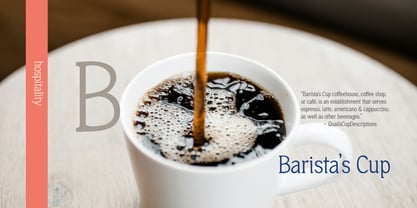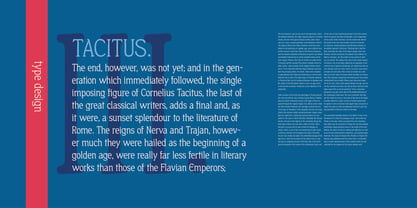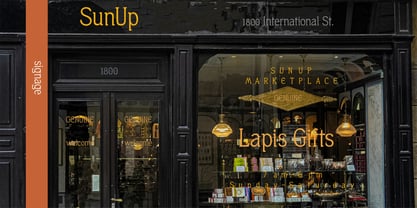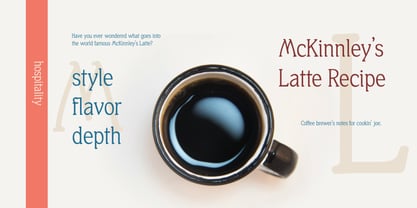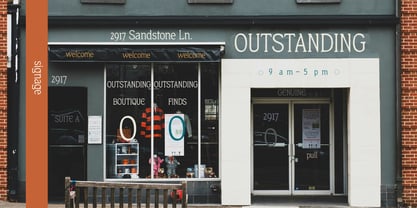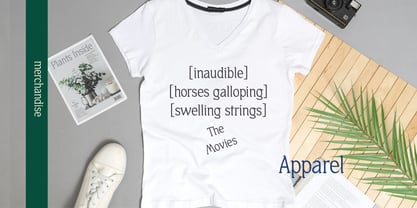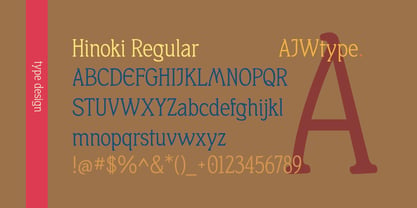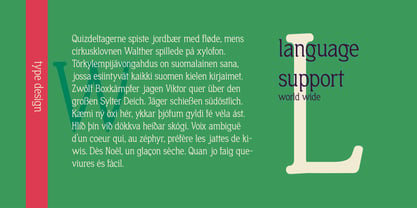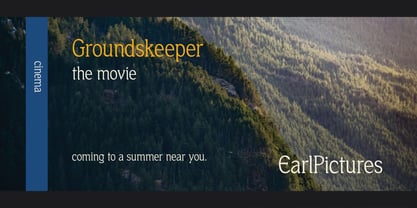
Hinoki
by AJW Type
Hinoki is a revival and redesign of Schelter-Antiqua, a serif typeface issued by the Leipzig foundry Schelter & Giesecke in 1905. The original's low-contrast old-style structure is the aspect of type preserved in the design. Making Hinoki read well at text sizes was a central development concern. The original structure and charisma of Schelter-Antiqua as the starting point offered the opportunity to redraw it with a softer, more contemporary sensibility.
The defining design decisions are three: slanted terminals with curved brackets where the serifs meet the strokes, rounded serif edges that ease the transition between dark and light, and curves drawn to suggest calligraphic translation without high contrast. The result is a typeface that carries the warmth and rhythm of a humanist old-style while moving with a more open, approachable energy. It is comfortable in long text and distinctive at display sizes.
Hinoki Regular ships with 855 encoded codepoints (2,412 glyphs) across Western and Central European Latin, the Latin Extended Additional block for African and Americanist usage, a complete typographic symbols set, and a fullwidth / halfwidth supplement for CJK-context typographic use. The OpenType feature set spans 21 features, including small capitals, old-style and lining figures with proportional and tabular variants, fractions, superscript and subscript numerals, scientific inferiors, case-sensitive punctuation, discretionary ligatures, localised forms, and a stylistic set of alternate forms.
The typeface is built for editorial, book, and long-form text use, and performs equally well in branding and display contexts where a serif with quiet personality is needed.
AJW Type is a type foundry based in Colorado, established in 2026 by Alexander J. Werdmuller von Elgg. The foundry's work focuses on revival type — drawing from printed specimens of the turn of the twentieth century and the mid-century period. Each family is developed with close attention to the drawing character of its source material: the expressive particularities of the original letterforms, their spacing relationships, and the structural logic that gives a specimen its visual personality. The production process at AJW Type is methodical. Research into historical specimens precedes drawing; vector work, sidebearings, and kerning are developed in sequence, with each stage examined before the next begins. Language support is a standing commitment across all families, extending the reach of each typeface beyond its historical origins and into contemporary multilingual use. The foundry's work spans the full pipeline — from the drawn letterform to the production font file.